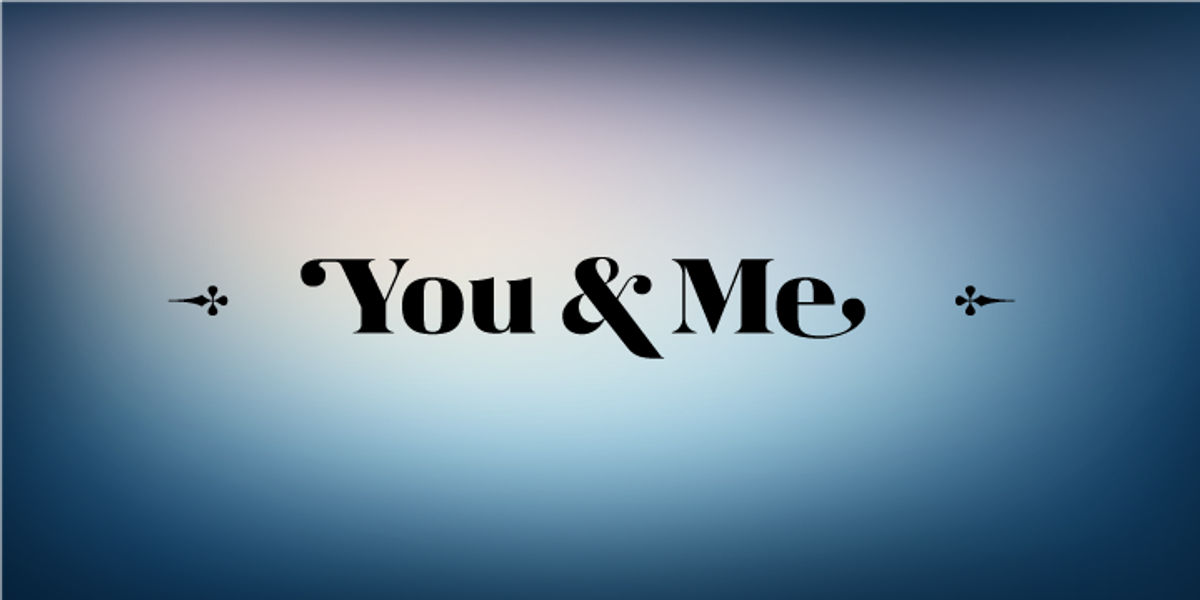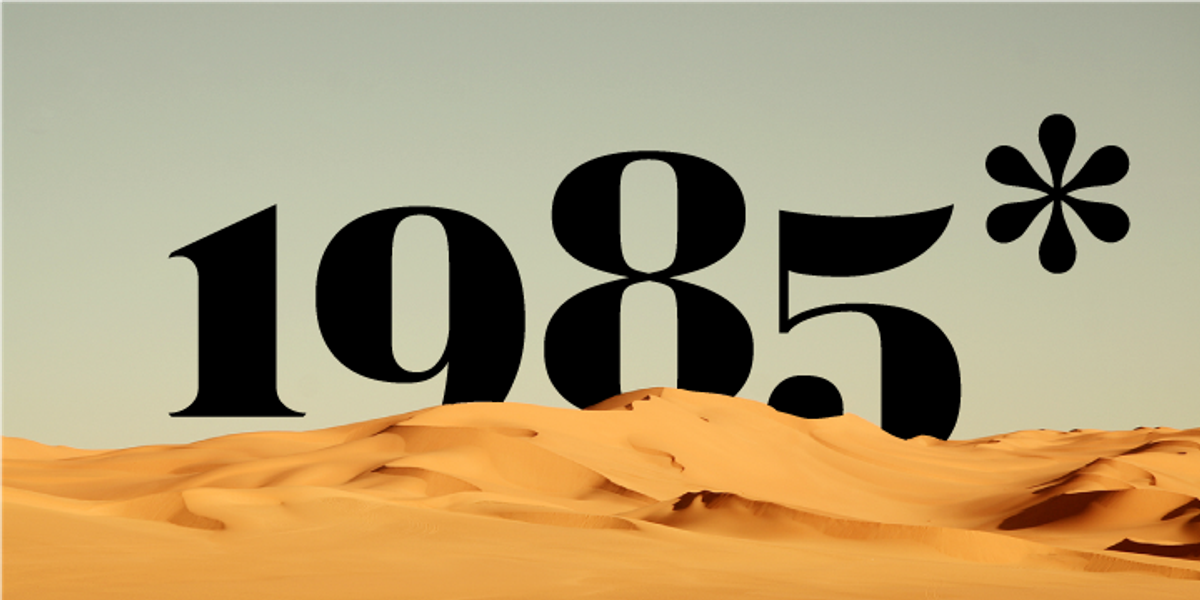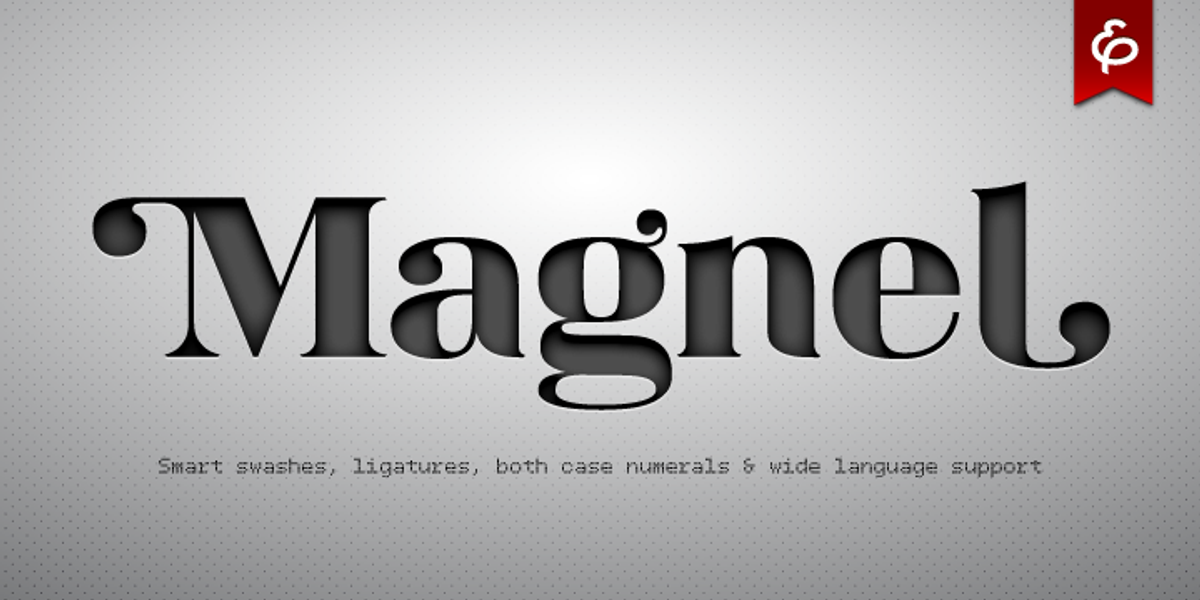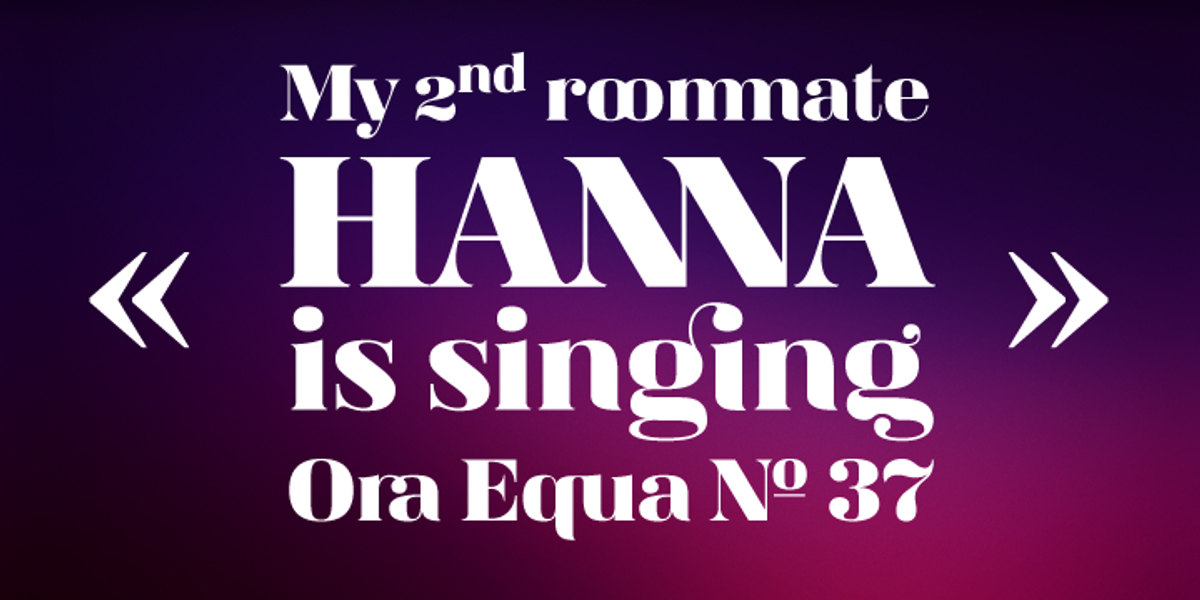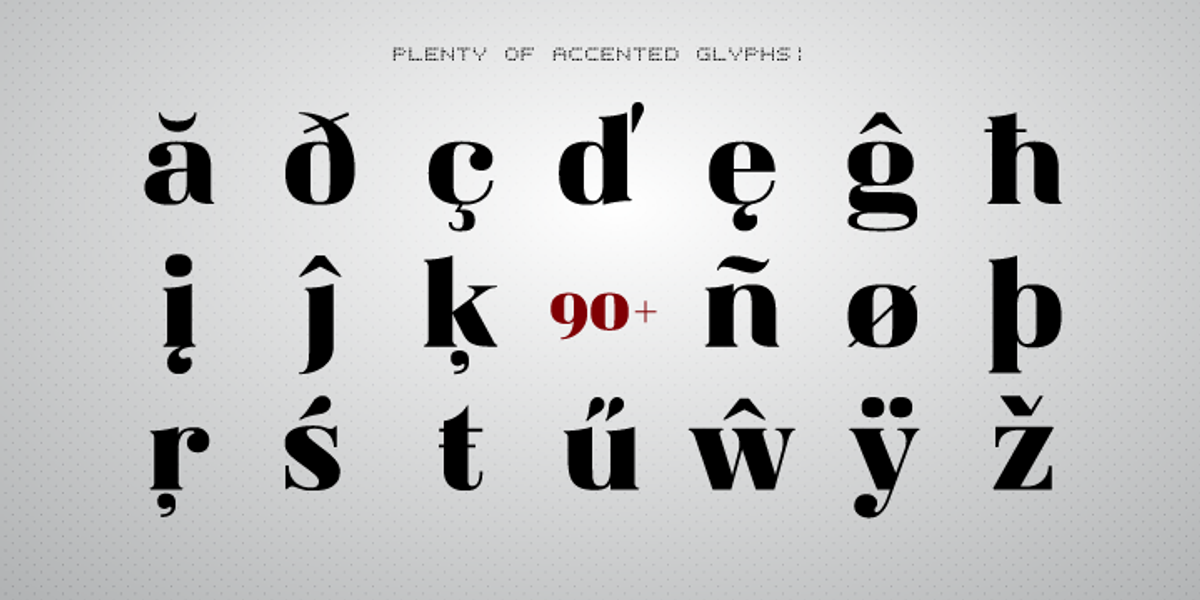
Magnel
Magnel is a didone display serif font designed for headlines and posters. It boasts a unique flavor reminiscent of arabic scripts, lending it an air of elegance.